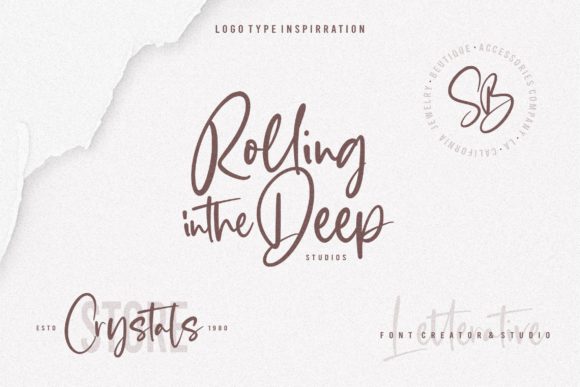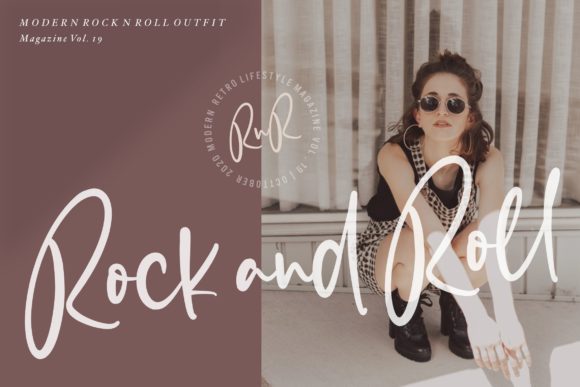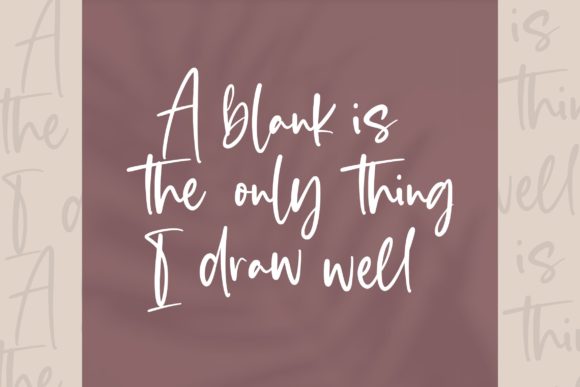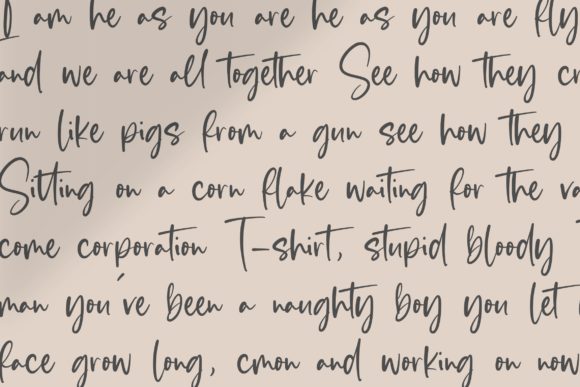
About Blankside Font
Blankside is a cute and asymmetrical handwritten font. It looks stunning on wedding invitations, thank you cards, quotes, greeting cards, logos, business cards and every other design which needs a handwritten touch.